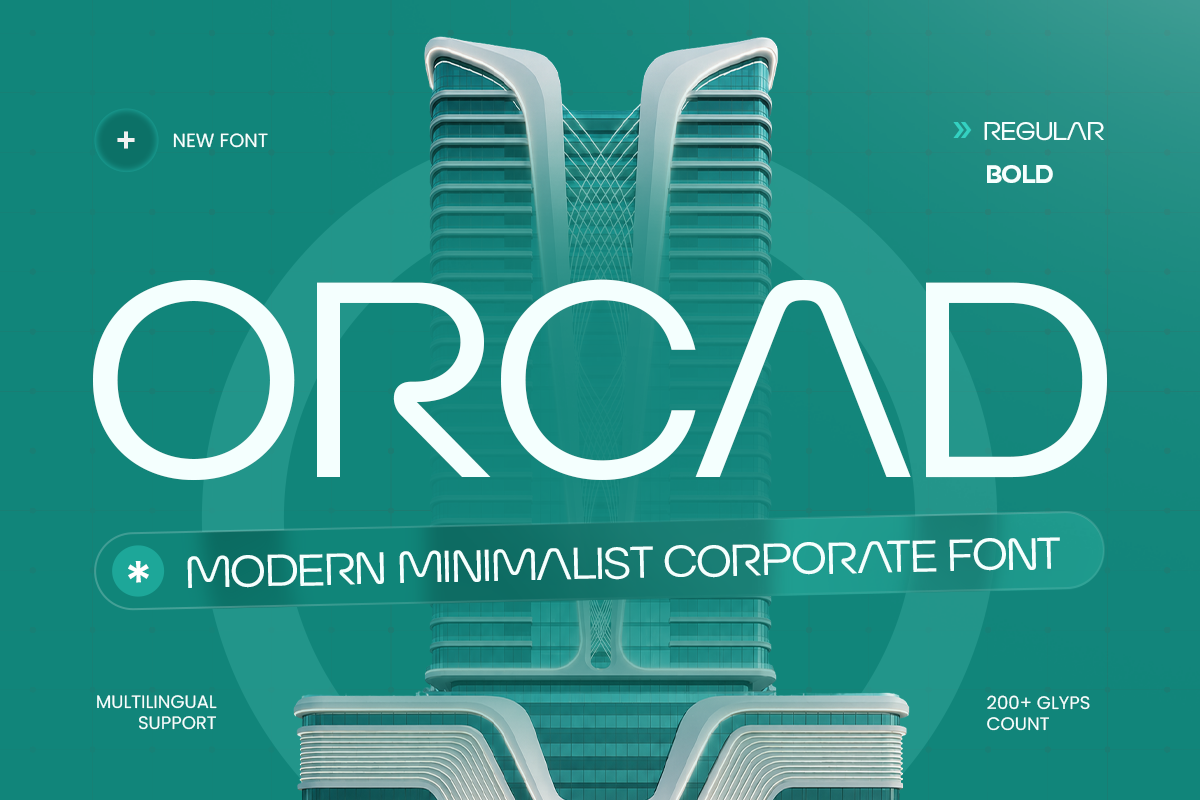
Orcad
-Modern Minimalist Corporate Font
ORCAD – Modern Minimalist Corporate Font
ORCAD is a modern minimalist corporate font created for brands that value clarity, professionalism, and timeless design. With its clean structure, balanced proportions, and refined letterforms, ORCAD delivers a sophisticated visual language perfect for contemporary business communication.
Designed for corporate branding, logo design, presentations, websites, UI/UX interfaces, and editorial layouts, ORCAD provides a polished appearance across digital and print platforms. Its minimalist character makes it ideal for technology companies, startups, agencies, and professional services seeking a strong and reliable identity.
Combining simplicity with modern elegance, ORCAD helps designers create memorable brand experiences through clean typography and versatile applications. From business cards and packaging to social media graphics and marketing materials, this corporate typeface brings confidence and consistency to every project.
ORCAD – Modern Minimalist Corporate Font Features
• Clean minimalist letterforms for professional branding
• Modern corporate style with balanced proportions
• Ideal for logos, presentations, websites, and editorial design
• Perfect for business identity and digital applications
• Works beautifully for print and screen projects
• OpenType features for enhanced typographic flexibility